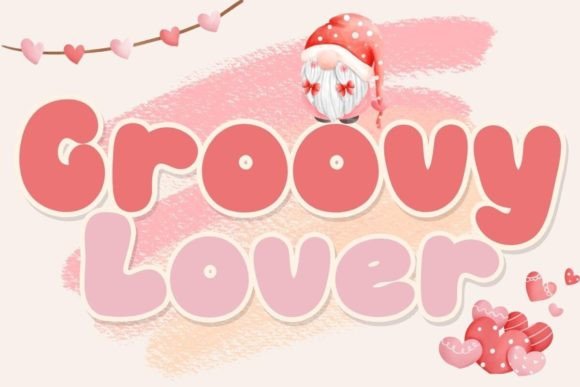
Groovy Lover, 70s Style Psychedelic Display Typeface
Groovy Lover is a decorative display font designed to evoke a retro, groovy aesthetic that feels charming and lighthearted. Its stylized letterforms bring a sense of fun and vintage flair — ideal for designs that need personality, warmth, and a throwback vibe. Whether you are working on apparel, posters, packaging, or branding, Groovy Lover adds a distinctive groovy character to your text.
| Style / Vibe | Groovy, retro, playful, nostalgic display | Modern, neutral sans‑serif display | Retro display but more generic / less stylized |